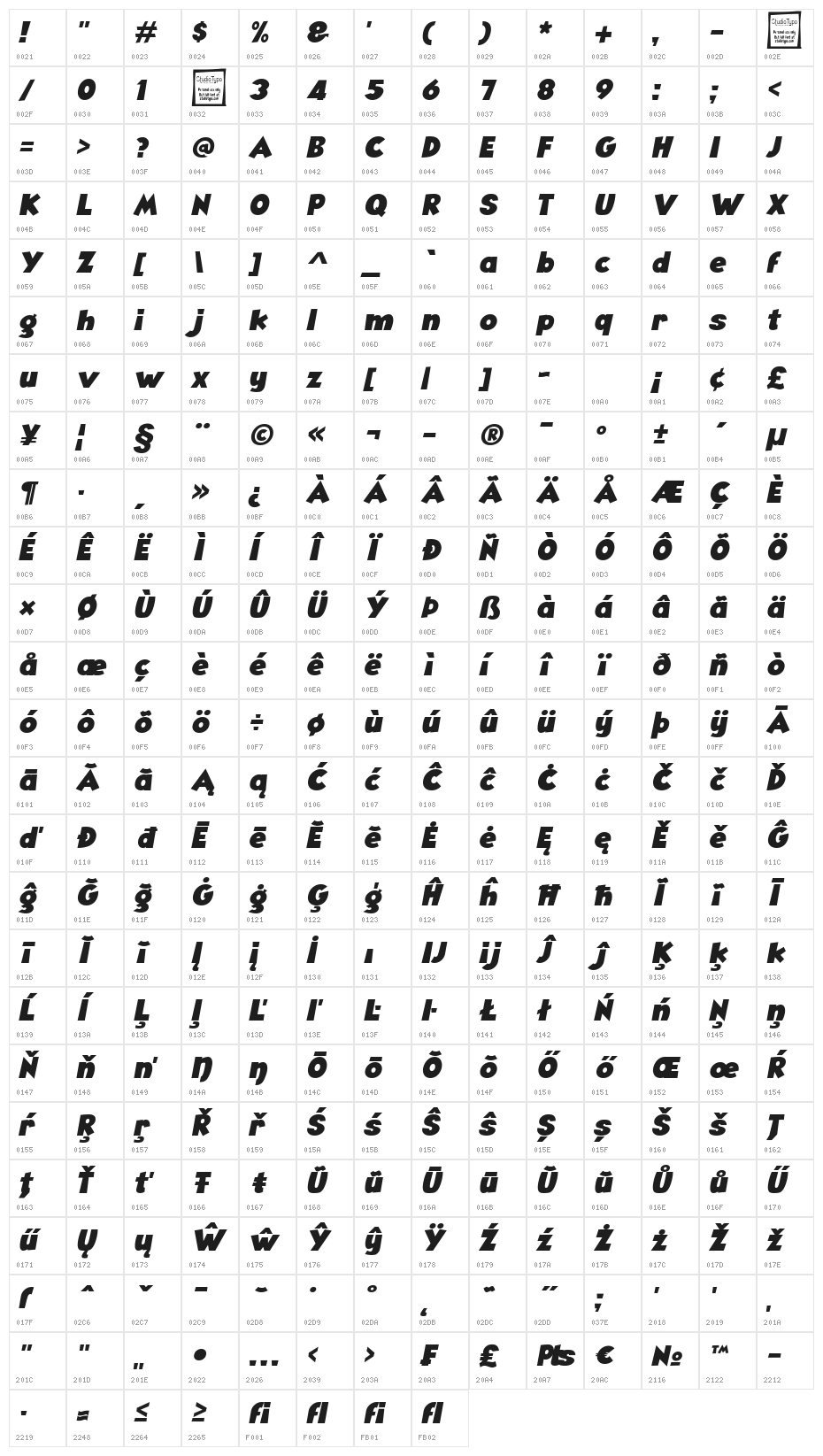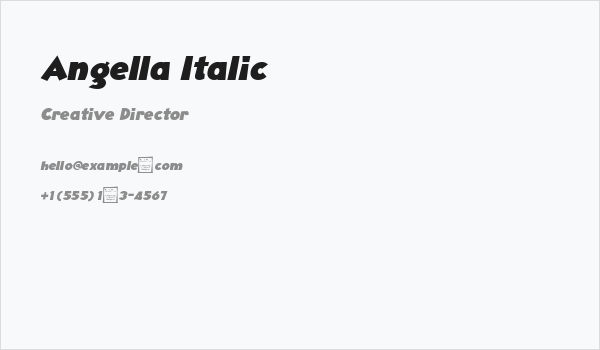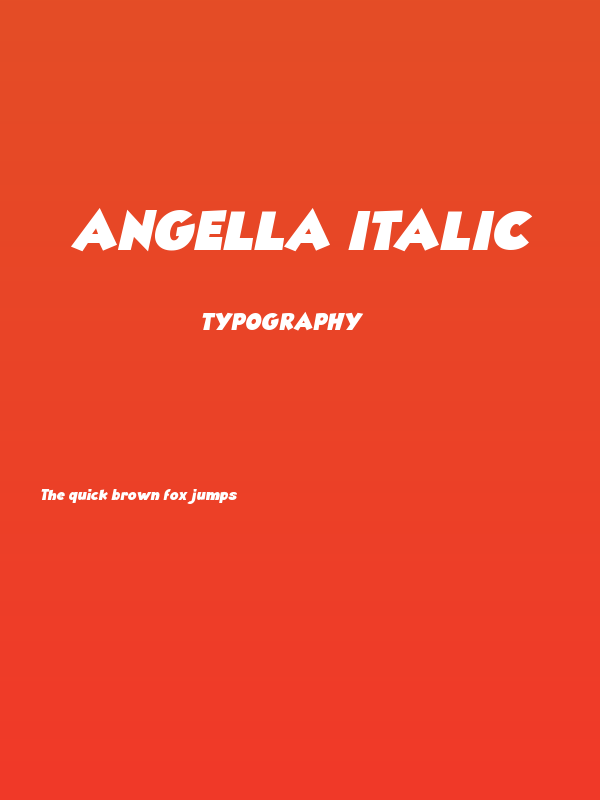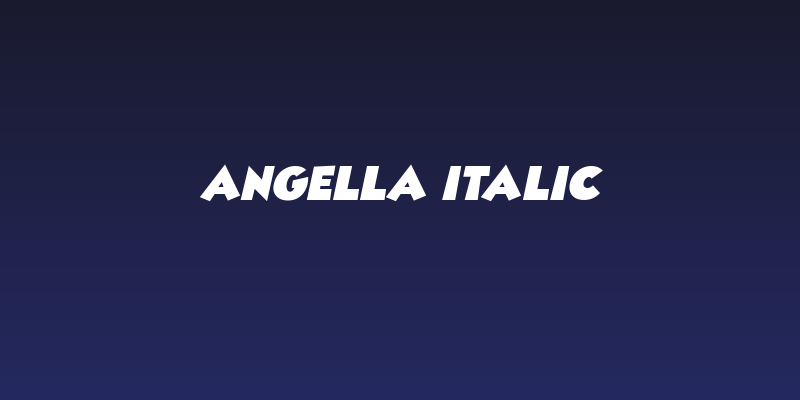
Angella Italic Font
Angella Italic Description
This font features a bold and dynamic italic style, characterized by its strong, angular strokes and a forward-leaning posture. The uppercase letters are robust and impactful, while the lowercase letters maintain a consistent weight, providing a harmonious balance. The numbers are equally bold, ensuring readability and emphasis. Special characters are designed with the same boldness, making them stand out effectively. The overall appearance is modern and assertive, suitable for making a strong visual statement.
| Use Case | Headlines, Logos, Advertising |
| Proposed Projects | Ideal for branding, advertising, headlines, and any project requiring a bold, impactful typeface. |